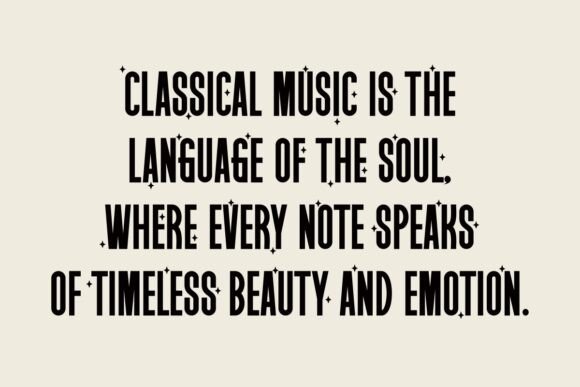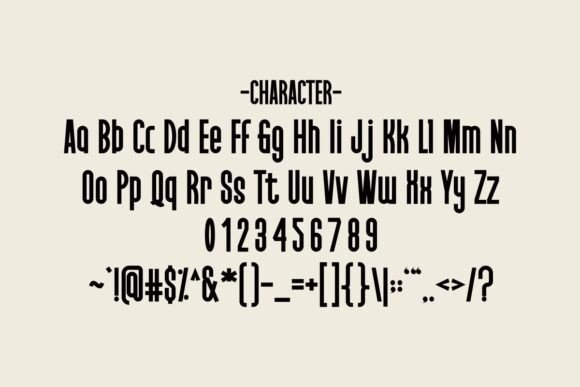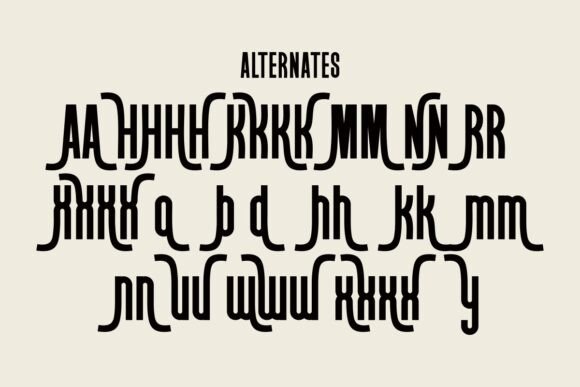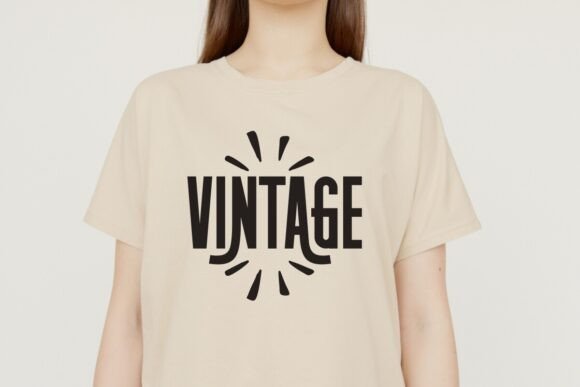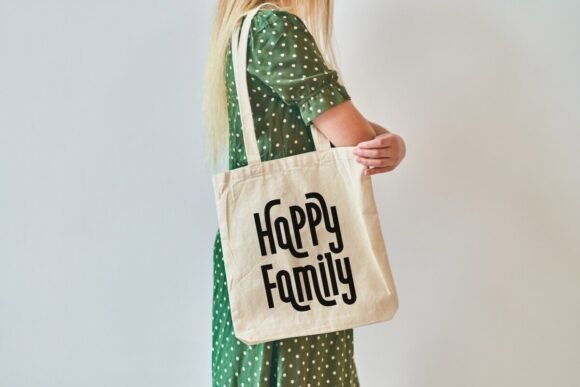
Introduction to Sakato Font
Sakato is a modern sans serif font inspired by the festive spirit of Christmas.
Its clean and versatile design makes it perfect for creating standout quotes, movie titles, labels, posters, and apparel such as t-shirts, mugs, and tote bags This font adds a fresh and contemporary touch to any holiday-themed project, while also fitting perfectly into modern design needs.